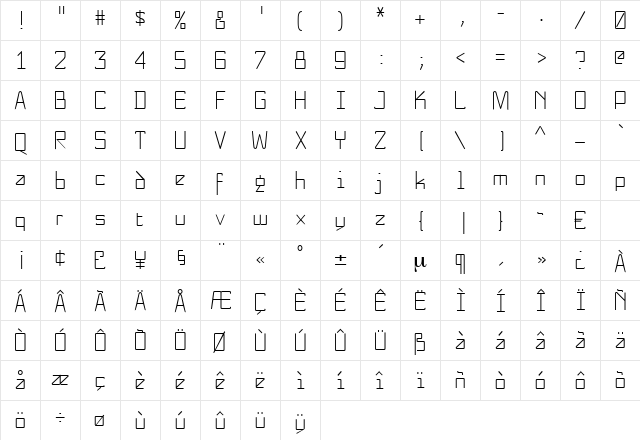
ReykjavikFine Regular
Design Context for ReykjavikFine Typeface
ReykjavikFine offers clean, dependable letterforms without strong stylistic allegiance, making it a practical choice for designers who need flexibility.